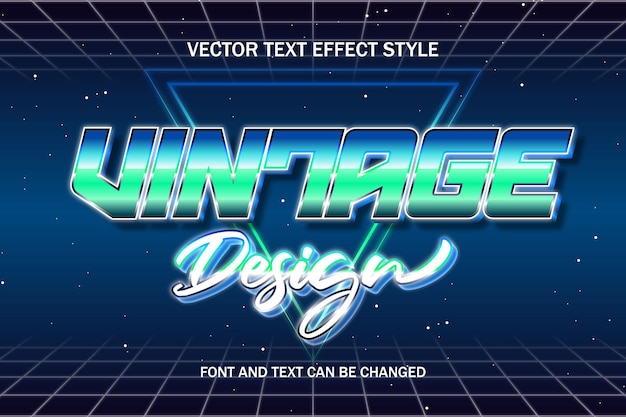
future shiny neon light retro synthwave typography editable text effect font style template design
Future shiny neon light retro synthwave typography editable text effect font style template design